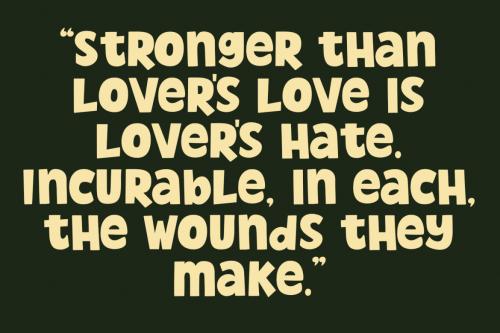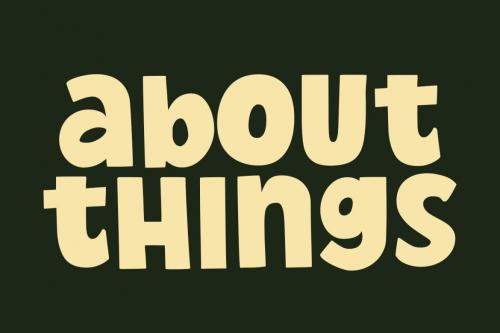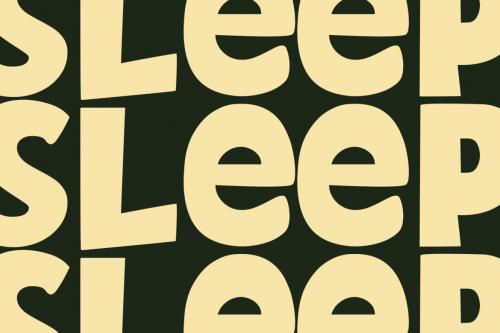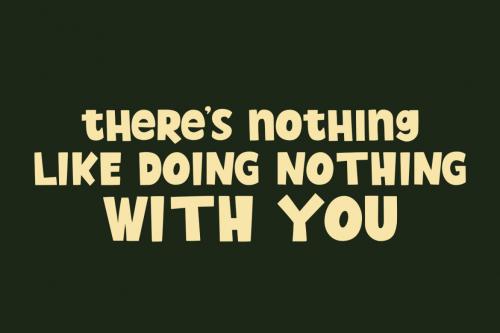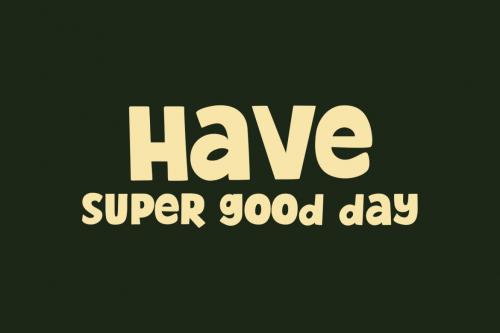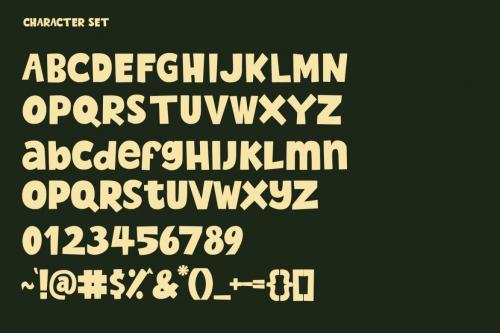
Pearl Jean is a casual handwritten display font. With medium low contrast stroke, fun character with a bit of ligatures and alternates. To give you an extra creative work. Pearl Jean font support multilingual more than 100+ language. This font is good for logo design, Social media, Movie Titles, Books Titles, a short text even a long text letter and good for your secondary text font with sans or serif. Make a stunning work with Pearl Jean font.